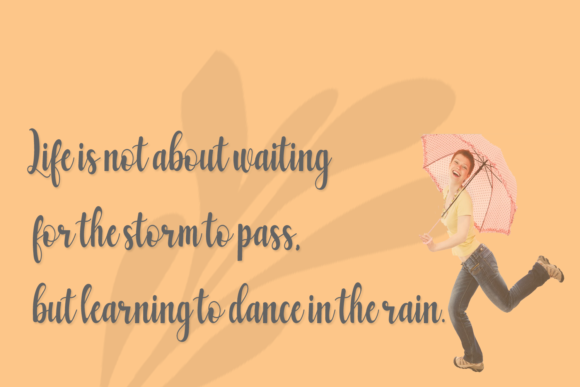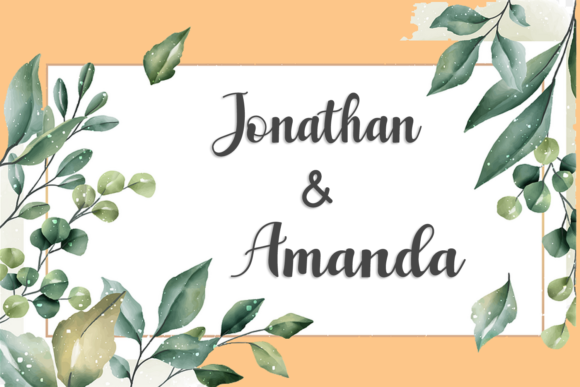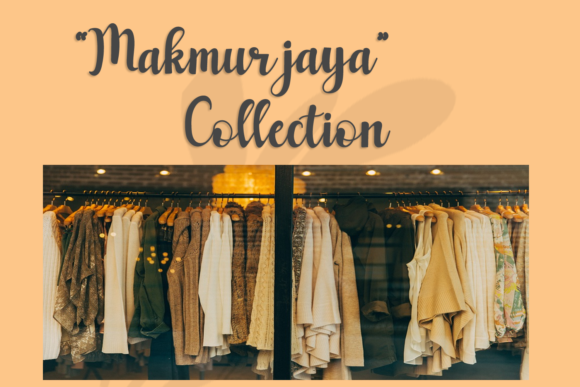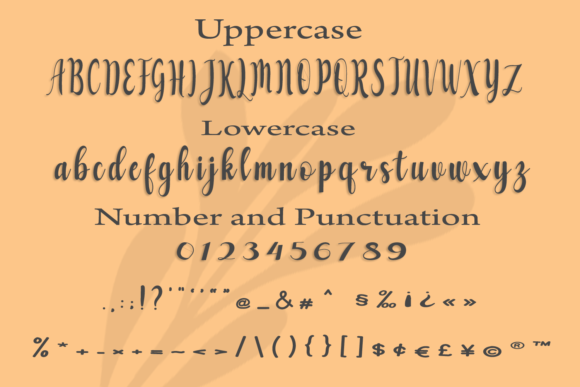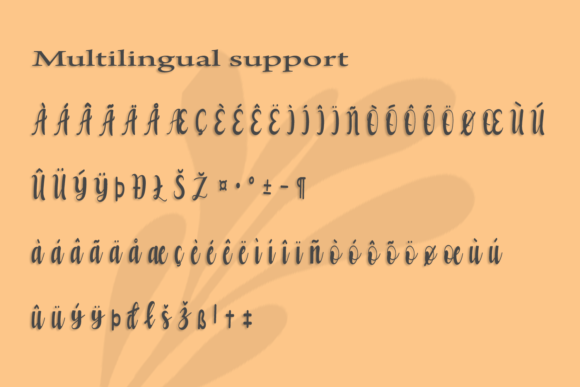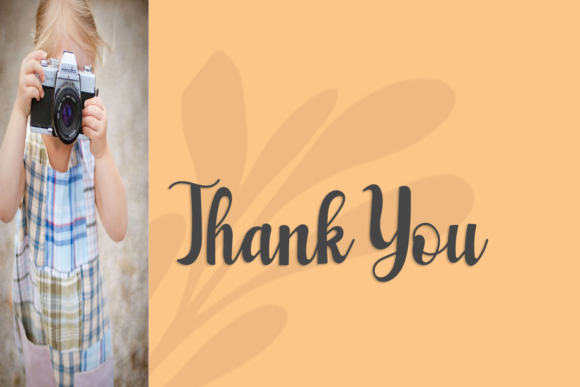
Introducing Coverboy Font: Elevate Your Designs with Elegance
Are you on the hunt for a font that exudes elegance and sophistication? Look no further than Coverboy Font, a stunning handwritten typeface that is sure to capture your heart. With its flowing lines and timeless style, Coverboy is the perfect addition to any design project. In this article, we’ll dive into the world of Coverboy Font, exploring its unique features, and how you can harness its power to create breathtaking designs.
The Story Behind Coverboy Font
Coverboy Font is a beautiful, handcrafted typeface that boasts an elegant touch. Its creator carefully crafted each letter to ensure a smooth, flowing script that is both visually appealing and highly legible. This font is perfect for designers and crafters looking to add a touch of sophistication to their work. Whether you’re designing a logo, creating a social media graphic, or crafting a stunning wedding invitation, Coverboy Font is sure to impress.
Key Features of Coverboy Font
So, what makes Coverboy Font so special? Here are just a few of its key features:
- Flowing Handwritten Style: Coverboy Font features a beautiful, flowing script that is reminiscent of handwritten text.
- Elegant Touch: Each letter has been carefully crafted to ensure a smooth, elegant feel that is perfect for designs that require a touch of sophistication.
- Distinct and Timeless Style: Coverboy Font boasts a unique style that is both modern and timeless, making it perfect for a wide range of design projects.
- Highly Legible: Despite its elegant feel, Coverboy Font is highly legible, making it perfect for use in body text, headings, and more.
Uses for Coverboy Font
So, how can you use Coverboy Font in your designs? The possibilities are endless! Here are a few ideas to get you started:
- Logos and Branding: Use Coverboy Font to create a stunning logo that exudes elegance and sophistication.
- Social Media Graphics: Add a touch of class to your social media graphics with Coverboy Font.
- Wedding Invitations: Create beautiful, bespoke wedding invitations with Coverboy Font.
- Packaging Design: Use Coverboy Font to add a touch of elegance to your packaging design.
Tips for Using Coverboy Font
To get the most out of Coverboy Font, here are a few tips to keep in mind:
- Use it Sparingly: While Coverboy Font is beautiful, it can be overwhelming if used too much. Use it sparingly to create a focal point in your design.
- Pair it with Other Fonts: Experiment with pairing Coverboy Font with other fonts to create a unique and visually appealing design.
- Experiment with Colors: Don’t be afraid to experiment with different colors to find the perfect combination for your design.
In conclusion, Coverboy Font is a stunning handwritten typeface that is sure to elevate your designs to the next level. With its flowing lines, elegant touch, and timeless style, it’s the perfect addition to any design project. Whether you’re a designer, crafter, or simply someone who appreciates beautiful typography, Coverboy Font is sure to capture your heart. So why wait? Download Coverboy Font today and start creating spectacular designs that will leave a lasting impression.